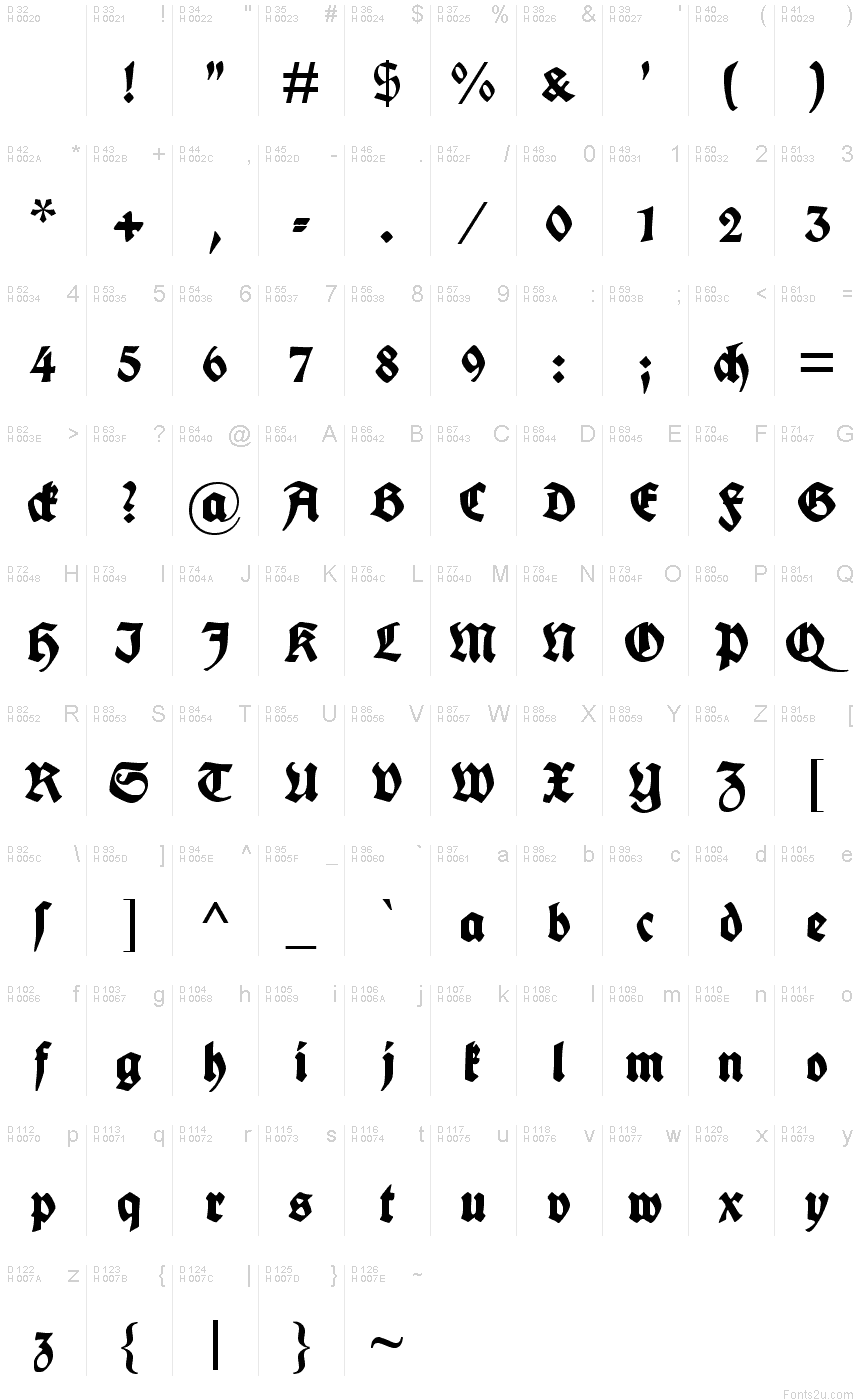
Fette Deutsche Schrift, digitized by Dieter Steffmann from Rudolf Koch's design, is a free blackletter font with forceful medieval forms. Sharp points and broad strokes build a dense silhouette.
The blade-like contours echo rough woodcut illustration and heraldic emblems, making the face apt for historical posters, fantasy game graphics, brewery packaging, and folk music merchandise. It will appeal most to audiences drawn to old-world tavern culture, folklore, and dramatic period publishing.